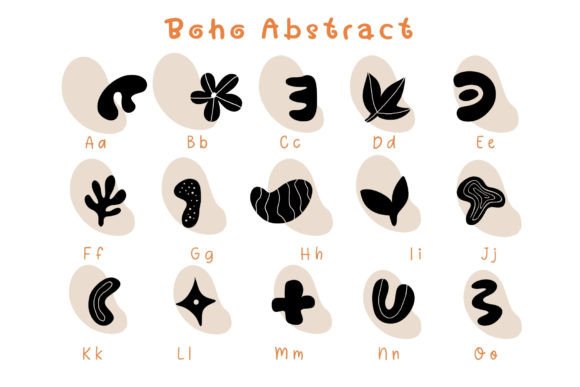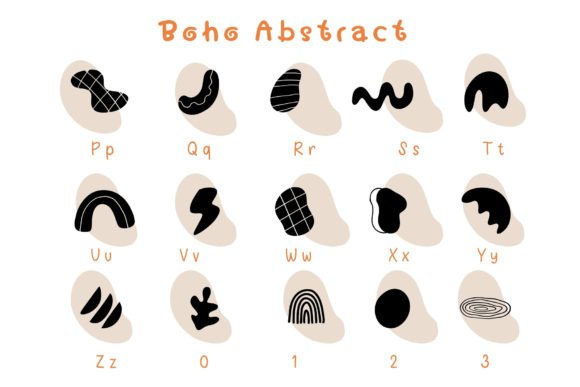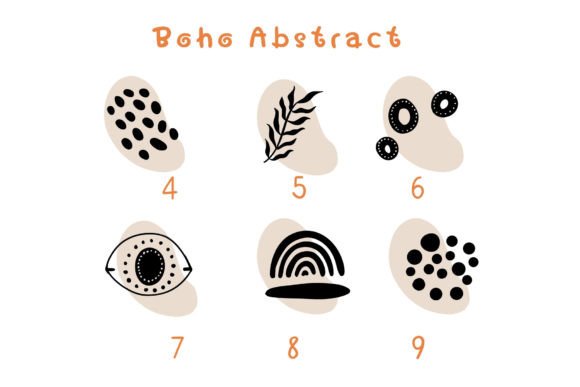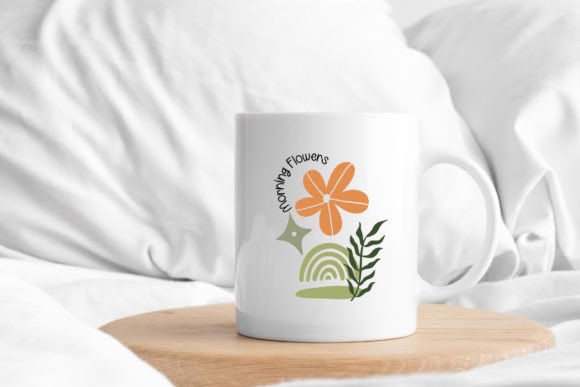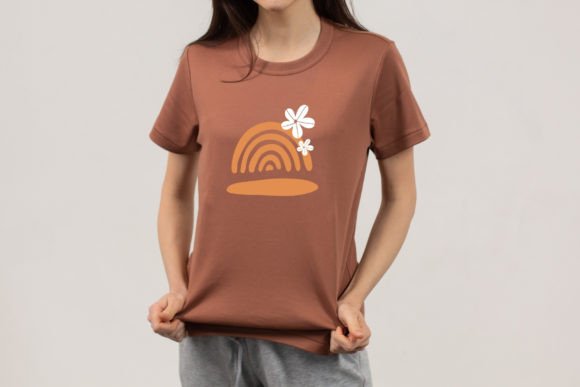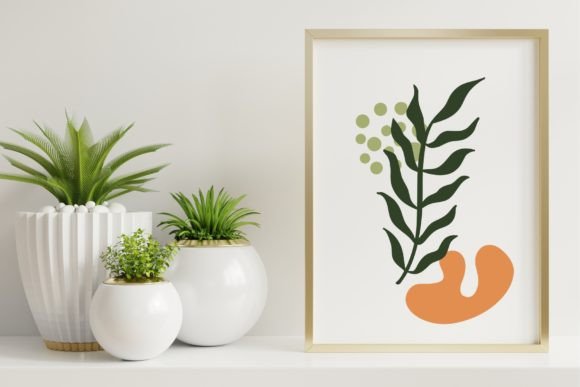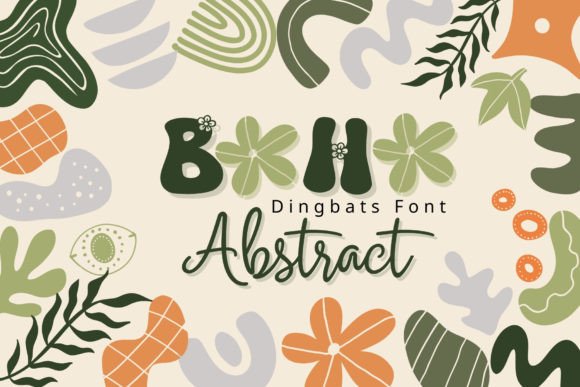
The Boho Abstract Font: A Charming Dingbat for Creative Projects
Have you ever been working on a design project, and suddenly, you realize that it’s missing that special something? I recall a recent experience where I was creating a wedding invitation for a client, and I just couldn’t find the right font to match the bohemian vibe they were going for. That’s when I stumbled upon the Boho Abstract Font, and it completely transformed my design!
The Boho Abstract Font, also known as Boho Abstract Doodle, is a delightful dingbat font that features beautiful flower, leaf, and shape illustrations. It’s perfect for adding a touch of cuteness and whimsy to your designs. In this article, we’ll explore the world of Boho Abstract, and I’ll share with you my honest review, practical tips on how to use it, and some similar font alternatives.
• ✨ Unique and charming illustrations that add a touch of bohemian flair to any design
• ✅ Easy to use and navigate, even for those who are new to dingbat fonts
• 💐 Versatile and suitable for a wide range of creative projects, from wedding invitations to social media posts
• 🌸 Beautifully crafted illustrations that are sure to delight your audience
While I absolutely adore the Boho Abstract Font, there are a few minor quirks to be aware of:
• ⚠️ Some of the illustrations may be a bit too intricate for very small font sizes
• 🤔 Limited character set compared to traditional fonts, but that’s to be expected with a dingbat font
The Boho Abstract Font was inspired by the free-spirited, artistic vibe of the bohemian lifestyle. Imagine a world where flowers bloom in every color of the rainbow, and leaves rustle in the gentle breeze. The designer of Boho Abstract aimed to capture this essence in a font that’s both playful and sophisticated.
Q: What type of projects is Boho Abstract suitable for?
A: Boho Abstract is perfect for a wide range of creative projects, including wedding invitations, postcards, posters, brochures, greeting cards, DIY crafts, decorations, logos, and social media posts.